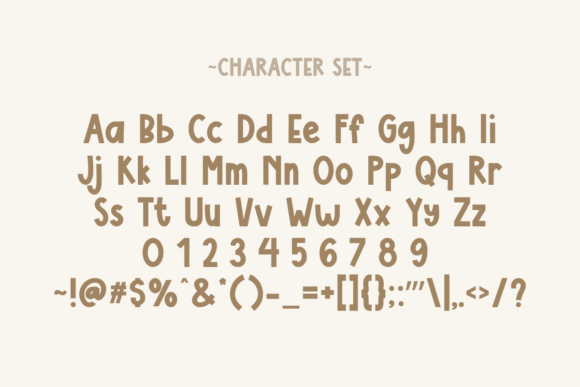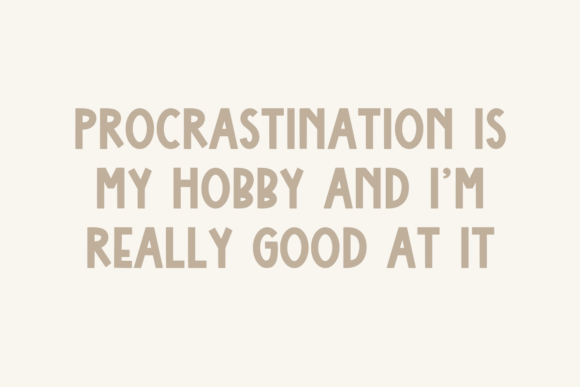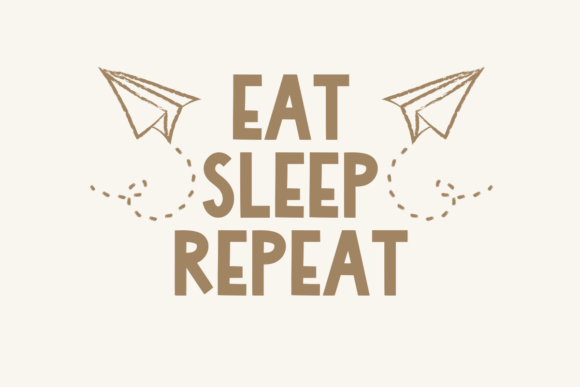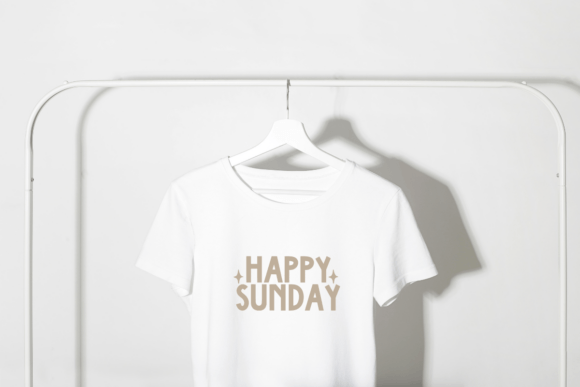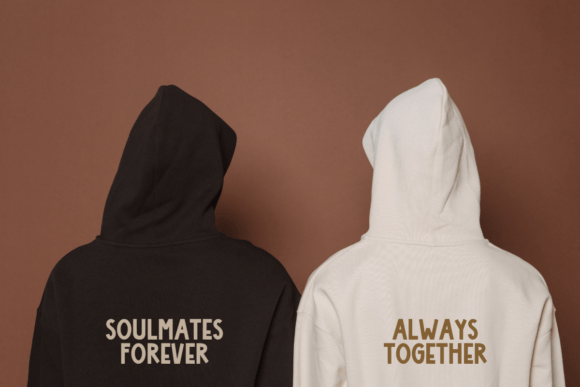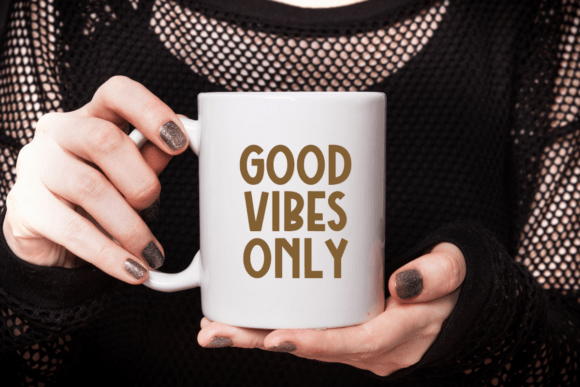
The Grinch Stole My Design Blues: How Funny Grinch Font Saved the Day
I still remember the design project that had me stumped. I was working on a cheerful greeting card for a client, but no matter how hard I tried, I just couldn’t find the right font to match the playful vibe. That was until I stumbled upon the Funny Grinch font. It was like a ray of sunshine burst into my design studio, and I knew I had found the perfect match. In this article, I’ll share my love for this fun sans-serif font, its unique features, and how to make the most of it in your designs.
An Honest Review: What I Love (and What to Watch Out For)
• ✨ Playful and Whimsical: Funny Grinch font is perfect for adding a touch of fun and whimsy to your designs.
• ✅ Bold and Readable: Its bold, rounded letters make it easy to read, even at smaller sizes.
• 🎉 Versatile: This font is ideal for a wide range of design projects, from branding to greeting cards and more.
While Funny Grinch font is an amazing addition to any design project, there are a few things to keep in mind:
• 🤔 Limited Formality: As a playful font, it may not be the best choice for more formal or professional designs.
• ⚠️ Glyph Limitations: While it has a range of glyphs and stylistic alternates, it may not have every special character you need.
The Story Behind Funny Grinch Font
Legend has it that the designer behind Funny Grinch font was inspired by the beloved Dr. Seuss character, the Grinch. They wanted to create a font that captured the Grinch’s playful, mischievous spirit, while still being easy to read and versatile. And so, Funny Grinch font was born – a bold, whimsical font that’s perfect for designers, crafters, and creative hobbyists alike.
Q: What type of designs is Funny Grinch font best suited for?
A: Funny Grinch font is perfect for cheerful designs, like greeting cards, branding, social media graphics, and more.
Q: Does Funny Grinch font have OpenType features?
A: Yes, Funny Grinch font has a range of OpenType features, including glyphs and stylistic alternates.